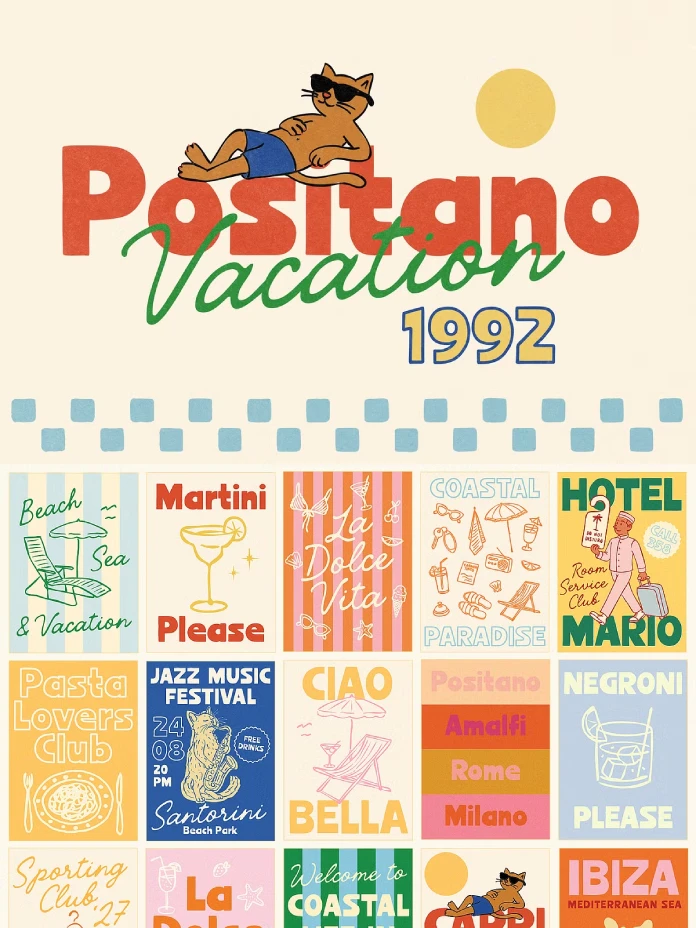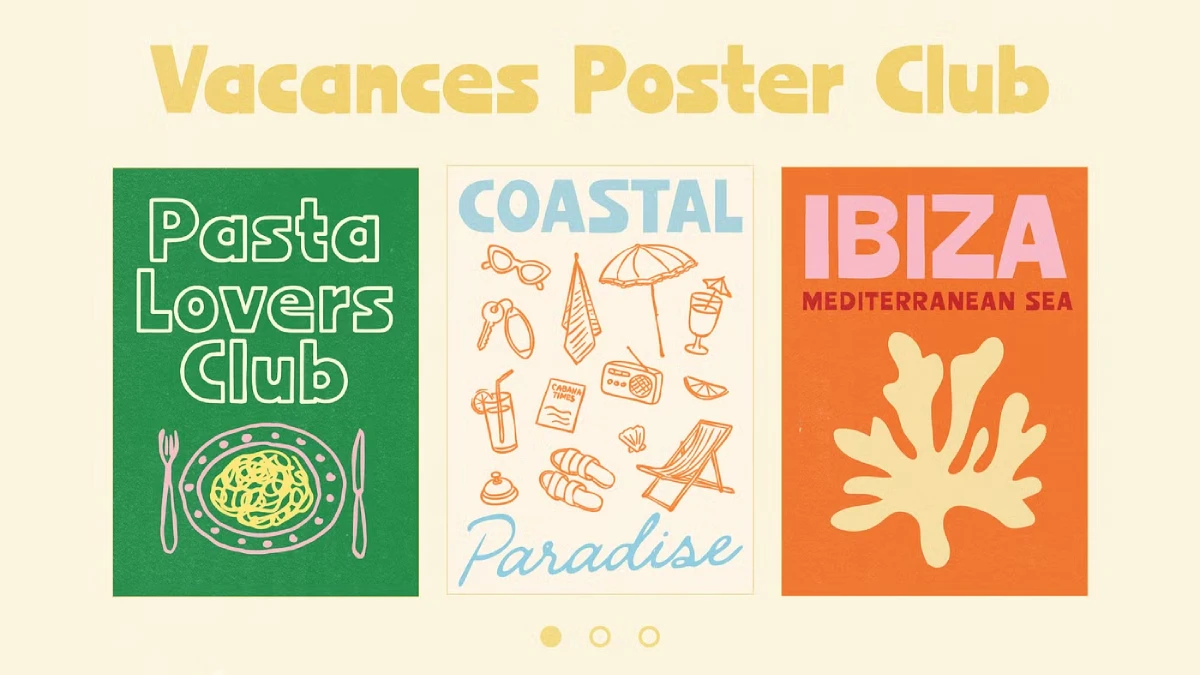
Vacances Poster Club: This Handwritten Font Captures The Irresistible Charm of a European Summer
In the digital landscape, where crisp, geometric sans-serifs often dominate screens, a clear longing for warmth and authenticity has emerged in design. Designers are witnessing a powerful return to aesthetics that feel personal, imperfect, and deeply human. This is precisely where the Vacances Poster Club, a remarkable handwritten vintage font family by Ayya Studio, makes its entrance. It offers more than just a set of fonts; it’s a comprehensive toolkit for crafting a compelling sense of nostalgia. This collection channels the effortless cool of a bygone era, echoing the charm of vintage European travel posters and coastal hotel signage. Its current relevance directly responds to a design world often saturated with minimalism, providing a distinct path to build brands and visuals that feel genuine and profoundly memorable.
The inherent appeal of such typography lies in its capacity to forge an immediate emotional connection. Unlike sterile digital fonts, handwritten styles inherently suggest a human presence. This makes brands feel more approachable and trustworthy. The Vacances Poster Club expertly taps into this psychological phenomenon, offering designers a direct route to authenticity.
Decoding The Aesthetic: What’s Inside The Vacances Poster Club?
The Vacances Poster Club is not merely a single typeface. Instead, it is a thoughtfully curated collection designed to function in complete harmony. It presents a comprehensive system for designers. They can create a cohesive, vintage-inspired look without the exhaustive and often frustrating search for compatible pairing fonts. The aesthetic embraced here is casual, bold, and unapologetically imperfect. It beautifully captures the spirit of sun-drenched European coastlines and the timeless elegance of the golden age of travel.
The Font Family
At its core, the collection comprises five distinct yet highly complementary handwritten fonts. This provides a truly versatile range for virtually any design project. Each font within the Vacances Poster Club collection contributes uniquely to the overall aesthetic:
- Vacances Poster Club Regular & Bold: These two robust sans-serif fonts form the solid backbone of the collection. They are sturdy, exceptionally clear, and carry a hand-drawn quality that completely avoids rigidity. These are perfect for impactful headlines and primary messaging.
- Vacances Poster Club Outline: An airy, display-oriented version adds a playful, retro touch. It works wonderfully for layering over images or for creating a strong, stylistic focal point.
- Vacances Poster Club Script & Script Slanted: These elegant script fonts introduce an essential element of grace and dynamic movement. Their fluid, casual strokes are ideal for accent text, distinctive logos, and for evoking a signature, personal feel. They add that indispensable human touch.
Bonus Hand-Drawn Illustrations
Beyond its exceptional typography, the Vacances Poster Club also includes a thoughtfully designed set of custom, hand-drawn illustrations. This is a truly crucial component. It elevates the package from a simple font set into a comprehensive design toolkit. The included icons—ranging from charming scooters and shimmering disco balls to relaxing beach umbrellas—perfectly complement the fonts’ retro vibe. This makes it effortless for designers to construct an entire, rich visual language.
The New Wave of Nostalgia: Why Vintage Fonts Resonate Now
The current resurgence of vintage and retro typography is certainly no accident. In a bustling marketplace crowded with sleek, corporate branding, both designers and consumers are increasingly drawn to visuals that tell a compelling story and evoke genuine emotion. Nostalgia acts as a powerful design tool. It masterfully creates a sense of comfort, connection, and authenticity that many modern, sterile designs often conspicuously lack.
Building Emotional Connections Through Imperfection
Handwritten fonts, specifically those within the Vacances Poster Club collection, are consistently perceived as more personal and intimate than their purely digital counterparts. Their subtle irregularities and organic forms beautifully mimic the natural nuances of actual handwriting. Our brains instinctively associate this with direct, human communication. This process fosters a deep sense of trust and makes a brand’s message feel more like a friendly, personal conversation and much less like a cold, corporate broadcast. For brands in sectors like hospitality, fashion, or the food industry, this profound emotional resonance can provide a significant competitive advantage. This collection makes achieving that connection remarkably simple.
Creating a Timeless Yet Timely Brand Identity with Vacances Poster Club
Choosing a font is undeniably a strategic decision; it fundamentally shapes a brand’s entire personality. The Vacances Poster Club instantly infuses a design with a tangible sense of place and a distinct period. It speaks of leisurely coastal drives, charming handwritten café menus, and the enduring appeal of classic print design. This particular aesthetic feels both deeply established and wonderfully fresh. This allows brands to appear grounded and trustworthy while simultaneously remaining visually current and relevant. The key lies in balancing vintage typography, such as the Vacances Poster Club, with modern design principles. Consider clean layouts and ample white space to craft a look that feels intentionally curated and sophisticated.
How to Master the Vintage Aesthetic with Vacances Poster Club
Simply selecting a vintage font is often not enough; the true magic resides in its thoughtful and expert application. The remarkable versatility of the Vacances Poster Club allows for an incredibly wide range of uses. This stretches from bold, commanding poster designs to subtle, elegant branding accents. Here is how you can effectively leverage this powerful toolkit for maximum impact across your projects.
For Branding and Logo Design
The casual yet bold nature of this particular font set is truly ideal for crafting memorable logos and distinctive brand identities. The script fonts work beautifully for a primary wordmark. They effectively convey a personal, signature style that feels unique. Meanwhile, the sans-serif versions are perfect for supporting taglines and secondary text. They ensure clarity while meticulously maintaining a cohesive, hand-crafted feel. When combined with the seamlessly included illustrations, you can effortlessly build a rich, expressive brand world that genuinely stands out. The Vacances Poster Club provides all the tools needed.
For Social Media and Digital Content
In the fast-scrolling, attention-demanding world of social media, visuals that immediately stop the user are absolutely essential. The Vacances Poster Club is perfectly suited for creating eye-catching YouTube thumbnails, engaging quote graphics for Instagram, and compelling social media branding. Its imperfect, handwritten quality feels profoundly authentic and highly relatable. This allows it to effortlessly cut through the noise of overly polished, generic content. Consider using the outline font for big, impactful headlines. Or, apply the script to add a sophisticated touch of personality to a call-to-action.
For Posters and Print Design
As its very name strongly suggests, this collection truly shines in the realm of poster design. The bold sans-serifs within the Vacances Poster Club create powerful headlines that instantly demand attention. Furthermore, the overall vintage vibe is simply perfect for event posters, unique merchandise, and distinctive packaging. The secret to successful vintage poster design involves layering subtle textures, employing a beautifully muted color palette, and embracing stylized illustration. All these elements are wonderfully facilitated by this versatile collection.
Ultimately, the Vacances Poster Club offers much more than just fonts and illustrations. It provides a distinct mood and a compelling narrative that resonates deeply. In a design landscape that often prioritizes absolute perfection, its warm embrace of imperfection feels like a truly refreshing breath of fresh air. It effortlessly transports us to a place that is stylish, deeply personal, and timelessly cool. This collection defines an aesthetic that is both evocative and endlessly inspiring.